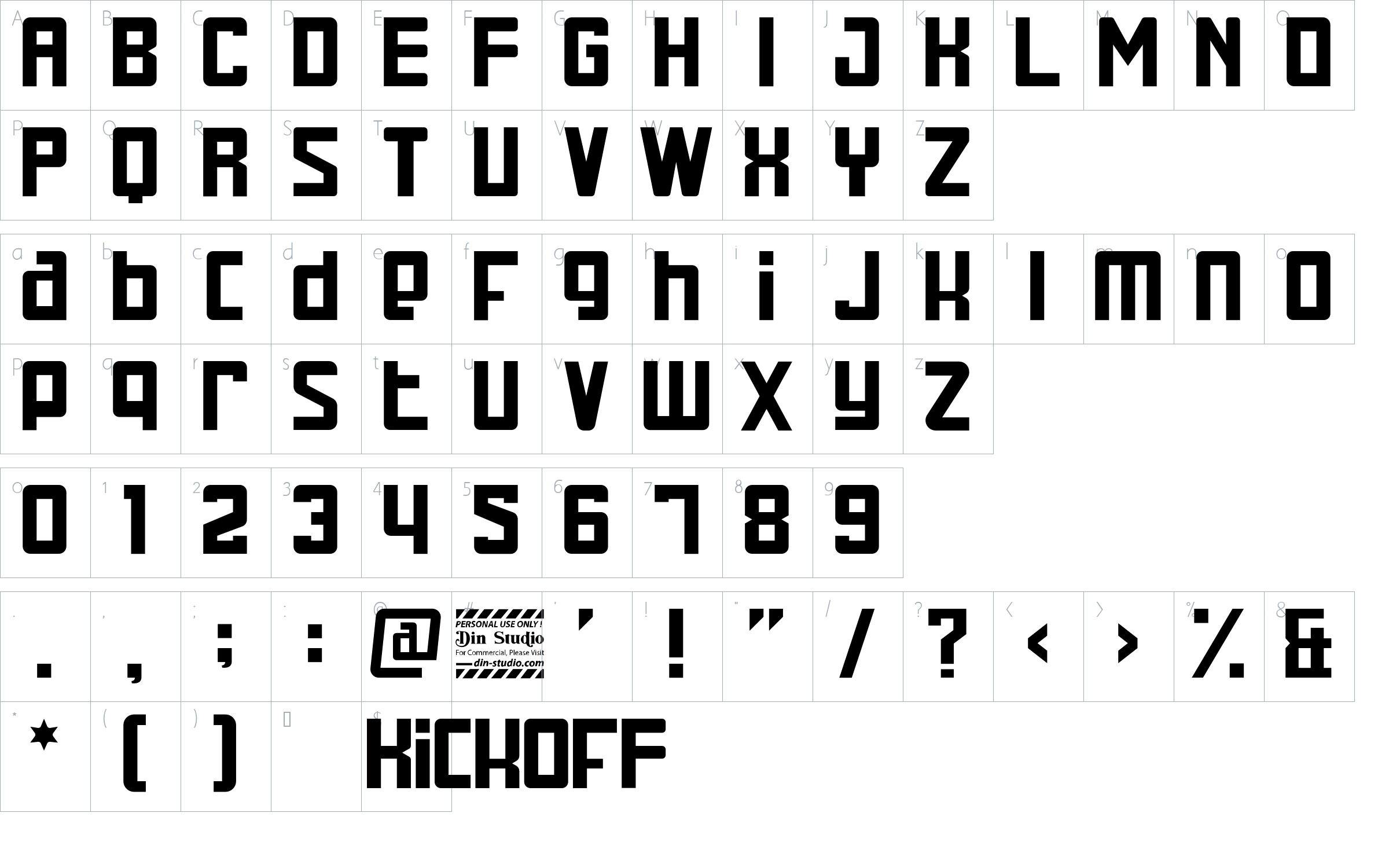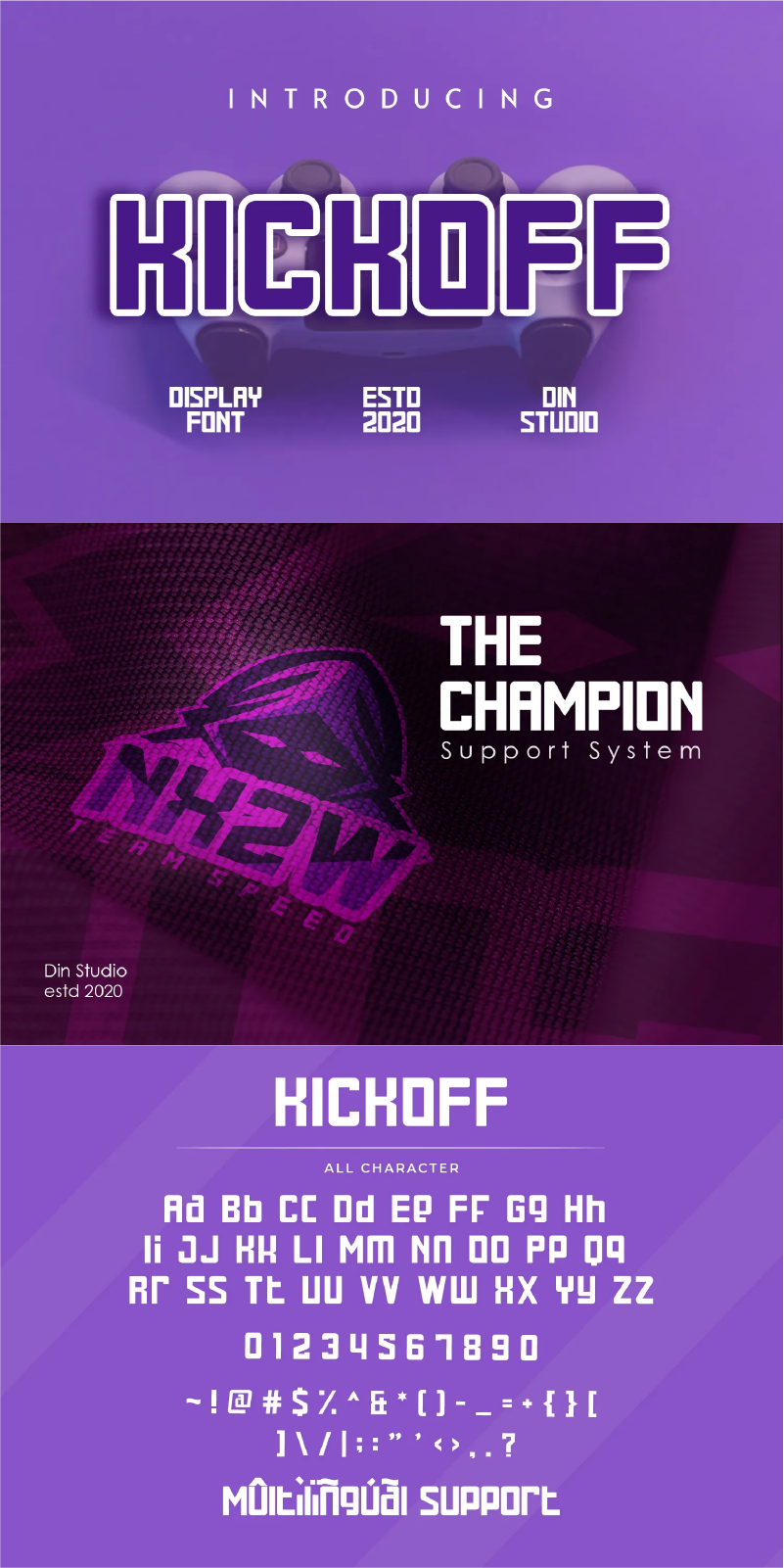
Kickoff Font
About Kickoff
Kickoff is a bold and dynamic display font crafted to capture the energy of e-sports while incorporating sleek futuristic elements. With its fairly thick weight, Kickoff exudes confidence and power. Its sharp yet clean lines and modern aesthetic ensure both readability and a striking visual impact. In addition, enjoy the features here.
Kickoff fits in headlines, logos, posters, branding materials, print media, and many more designs. Find out more ways to use this font by taking a look at the font preview.